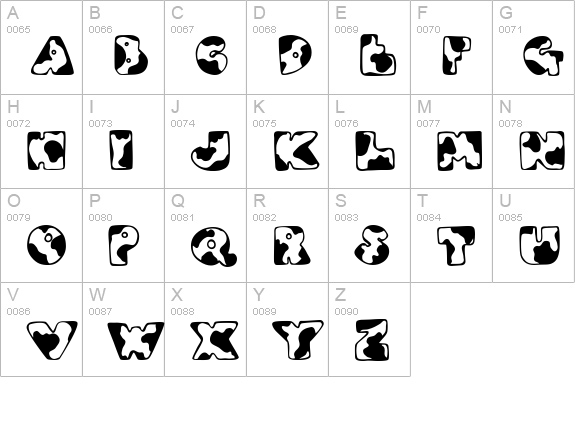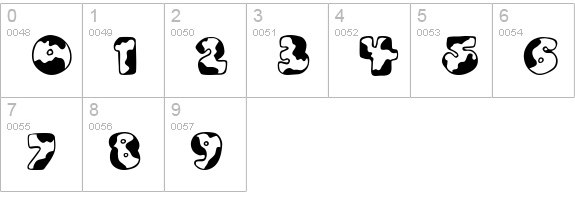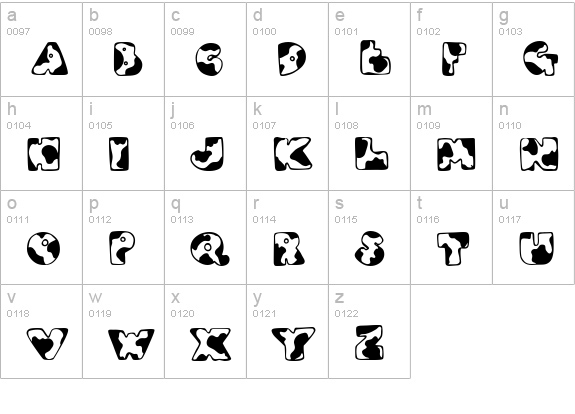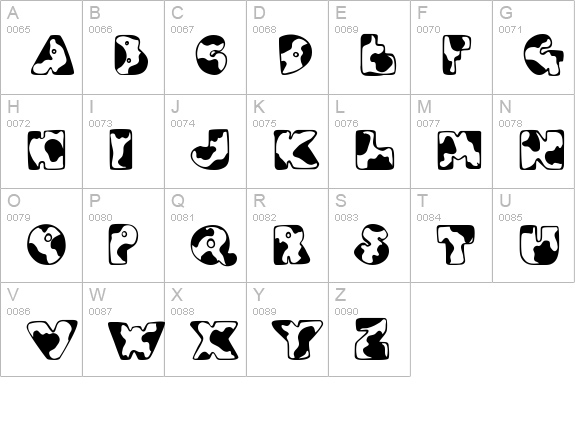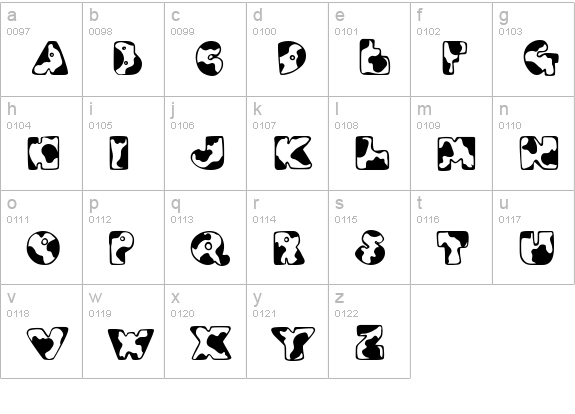
DJ Moo font is a playful and vibrant typeface that is sure to add a fun and energetic touch to your projects. With its bold and distinctive characters, this font is perfect for creating eye-catching designs for parties, events, and more. Whether you're looking to add a touch of whimsy to your invitations or create bold headlines for your website, DJ Moo font has got you covered. Best of all, DJ Moo font is free to download at FontsMarket.com! So you can easily add this unique and engaging font to your collection without breaking the bank. Don't miss out on the opportunity to bring a touch of playfulness to your designs with DJ Moo font. Download it today and start creating with style!